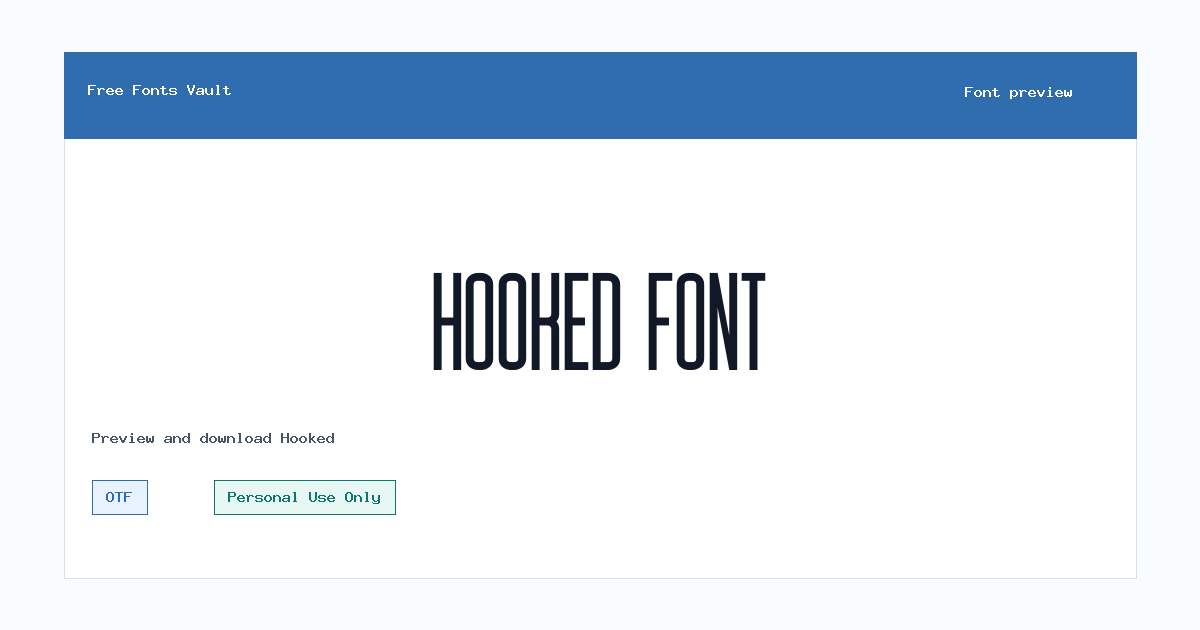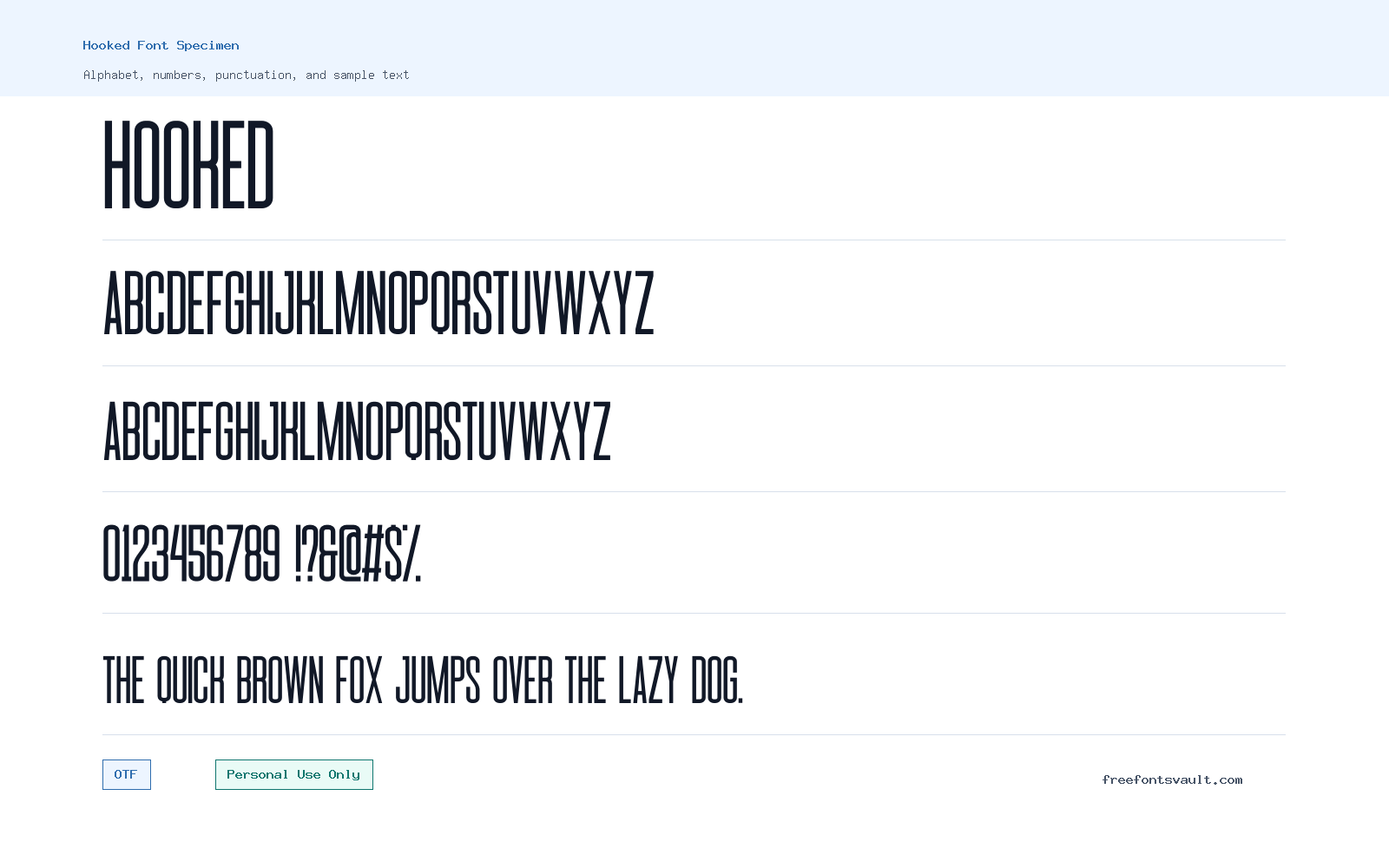
Hooked
- Designer Muhammad Rizki Utomo
Hooked is a sans serif font family with a regular OTF style, made for personal-use design projects. It is a good font to test when you need clean letterforms for short titles, poster text, social graphics, branding drafts, or web layout mockups, while keeping the license limit in mind.
Hooked is listed as a sans serif font, which makes it a practical choice to preview when you want a cleaner alternative to decorative or script styles. The downloadable file is an OpenType font in a regular, normal-weight style, so visitors can quickly test it in headings, short labels, cover lines, navigation mockups, and simple display text. Because only one regular style is available, it is best treated as a focused type choice rather than a full text system with multiple weights.
Use the preview box to check how Hooked handles the words you actually plan to design with. Try uppercase and lowercase text, short brand names, numbers, punctuation, and a few longer phrases before deciding where it fits. For logo concepts, it can be useful in early personal drafts, especially when you want to test a straightforward sans serif direction. For posters and social posts, keep the text short and compare the font at large sizes, since single-style fonts often work better as accent type than as long reading copy.
- Sans serif font family with a regular style
- Normal 400 weight, useful for testing simple headings and short display text
- Single-style family, so pairing with a supporting text font is recommended
- Personal poster experiments
- Logo concept drafts for private testing
- Social media graphic mockups
- Website header and button mockups
- Presentation title slides
- Short labels, covers, and display text
Start by previewing Hooked with the exact text you need: a brand name, headline, event title, or short call-to-action. Check spacing at large and small sizes, and test numbers if your design includes dates, prices, or lists. For longer layouts, pair Hooked with a neutral body font that has regular, italic, and bold weights, because Hooked is listed with only one regular style. A simple sans serif text family can keep paragraphs readable while Hooked handles the title or accent role. If using it in a logo draft, treat the preview as an early concept until the license is confirmed for branding and commercial use.
Who designed Hooked?
Hooked is credited to Muhammad Rizki Utomo.
Is Hooked good for body text?
Hooked is better to test first in short text, headings, and display use. Since only a regular style is listed, a separate body font with more weights may be easier for long paragraphs.
What should I pair with Hooked?
Pair it with a readable neutral text font. Let Hooked handle titles or accent words, and use the supporting font for paragraphs, captions, menus, and smaller interface text.